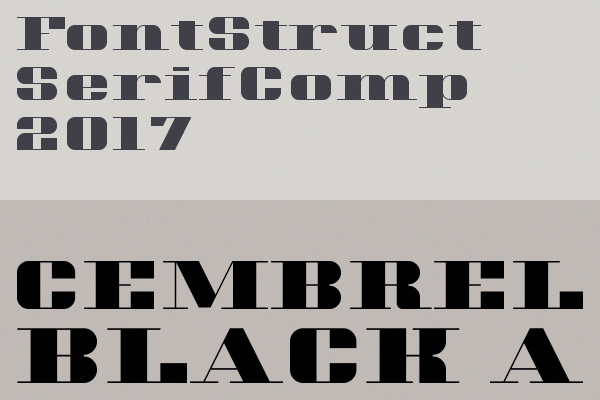
Dainty serifs and sturdy body lines, this design tells me "solidity, reliability with attentiveness, thoughtfulness". I like the look of K,Y,x,5,{, ß and €.